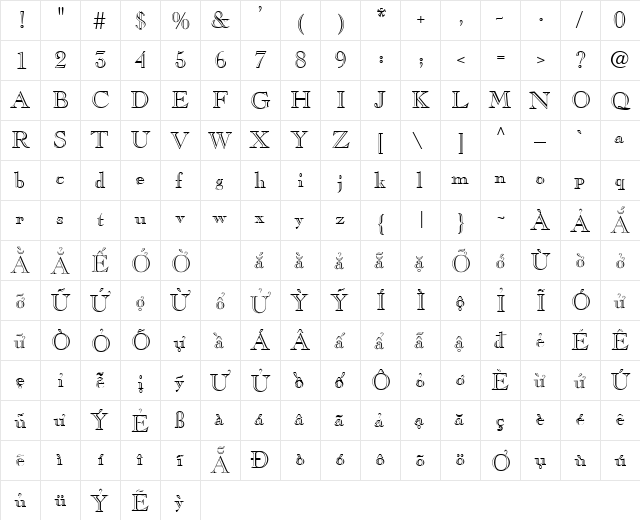
VPS Quang Tri Regular
Design Context for VPS Quang Tri Typeface
VPS Quang Tri is a composed and adaptable typeface that performs quietly and consistently across a wide range of design contexts.